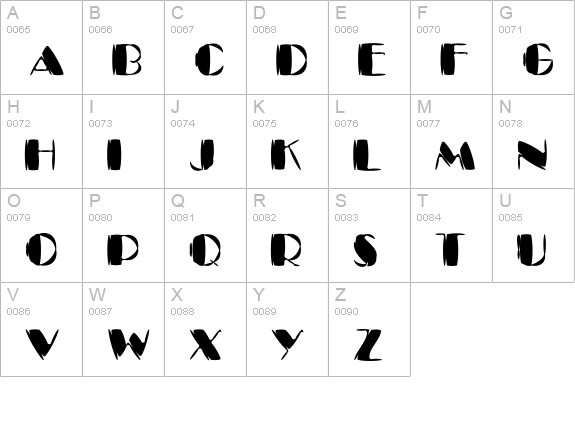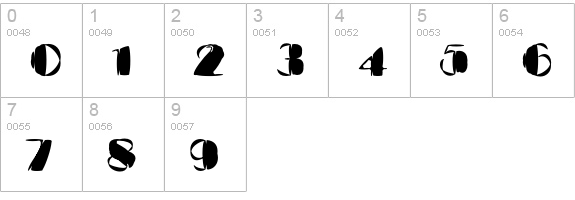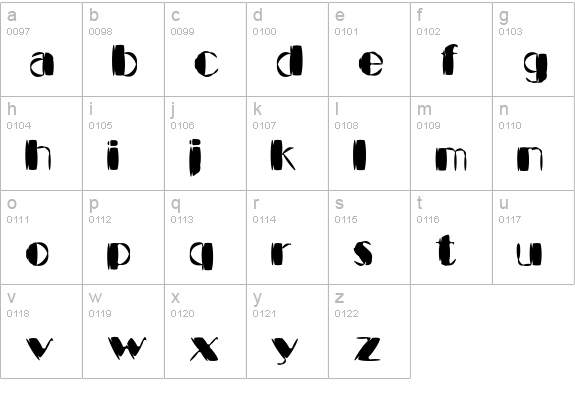
KaptainKirk Font Details
Introducing KaptainKirk, a captivating and versatile font that will take your designs to new heights! With its bold and commanding presence, this font is perfect for making a statement in any project. Whether you're creating eye-catching logos, attention-grabbing headlines, or stunning typography, KaptainKirk is sure to captivate your audience. This font boasts a unique combination of sleek lines and sharp edges, giving it a modern yet timeless appeal. Its carefully crafted letterforms exude confidence and authority, making it an ideal choice for branding, advertising, and editorial purposes. KaptainKirk's versatility knows no bounds, effortlessly blending with any design style, from minimalist to bold and vibrant. But what truly sets KaptainKirk apart is its availability as a free download. That's right, you heard it correctly - this remarkable font can be yours without spending a penny! Thanks to FontsMarket.com, you can easily access and download KaptainKirk to enhance your creative endeavors. So why wait? Unleash your creativity and elevate your designs with KaptainKirk today! With KaptainKirk, the possibilities are endless. Its extensive character set includes uppercase and lowercase letters, numerals, punctuation marks, and special characters, ensuring that your message is flawlessly communicated. Additionally, its OpenType features provide you with even more options to customize and personalize your designs, making every project truly unique. Designed with precision and attention to detail, KaptainKirk guarantees legibility and readability across various mediums, both in print and on-screen. Its high-quality and well-defined outlines ensure that your text remains sharp and clear, regardless of the size or resolution. So, whether you're a professional designer or a passionate hobbyist, KaptainKirk is your go-to font for creating impactful and memorable designs. Don't miss out on this incredible opportunity to enhance your visual communication - head over to FontsMarket.com and download KaptainKirk today, and let your creativity set sail!